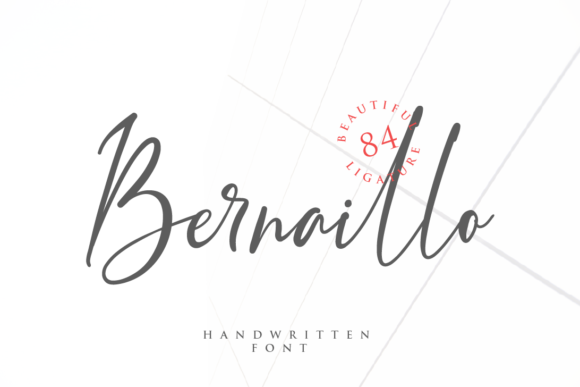
Bernaillo Font
Bernaillo Font: The Epitome of Elegance and Modernity in Typography
Embark on a journey into the realm of typography with Bernaillo Font, where elegance and modernity converge to create a symphony of visual delight. This original handwritten font, crafted by the renowned Pen Culture, captivates with its distinctive style, ready to transform your creative visions into breathtaking realities.
Bernaillo's allure lies in its ability to evoke sophistication and charm in every design. Its meticulously crafted strokes exude a modern elegance that elevates your creations to new heights of visual appeal. Whether you're a seasoned designer or just starting your creative journey, Bernaillo is your passport to a world of remarkable designs.
With Bernaillo, you gain access to a versatile font family that seamlessly adapts to a myriad of design projects. Its graceful curves and refined lines lend themselves perfectly to watermarks, signatures, and signature logos, adding a touch of personal flair to your branding efforts. Create business cards that command attention, or design brand names that exude an aura of exclusivity and professionalism. The possibilities are endless, limited only by the boundaries of your imagination.
Bernaillo's versatility extends beyond the realm of branding and identity. Unleash your creativity and explore its potential in wedding invitations, greeting cards, posters, and social media graphics. Its delicate charm adds a touch of elegance to any design, ensuring that your messages leave a lasting impression.
But Bernaillo's allure extends beyond its aesthetic appeal. It's a font meticulously designed for readability and functionality. Its carefully crafted characters ensure clarity and legibility, even in small sizes, making it an ideal choice for web design and user interfaces. Its smooth flow and consistent stroke width guarantee a seamless reading experience, enhancing the user's engagement with your content.
With Bernaillo Font, you unlock a world of creative possibilities, transforming your designs into captivating expressions of artistry. Its modern elegance and versatility make it a must-have for designers seeking to create upscale and chic designs. Embrace the beauty of Bernaillo and elevate your creative endeavors to new heights of excellence.